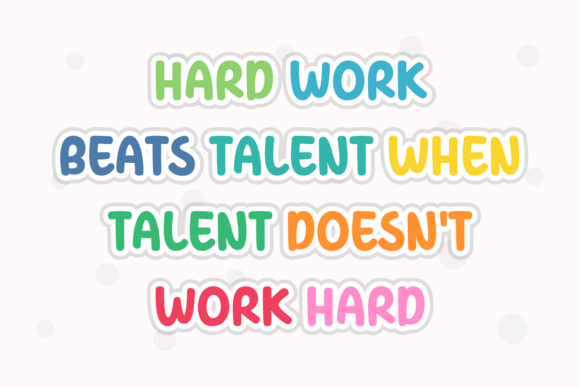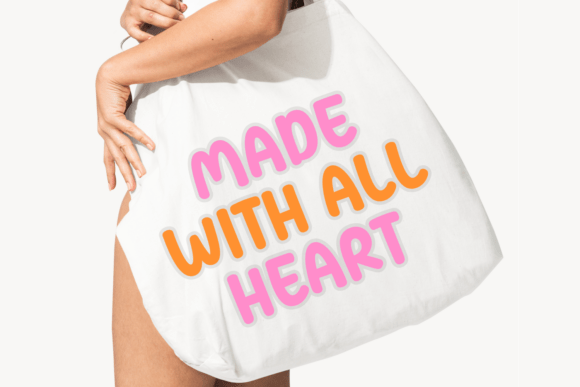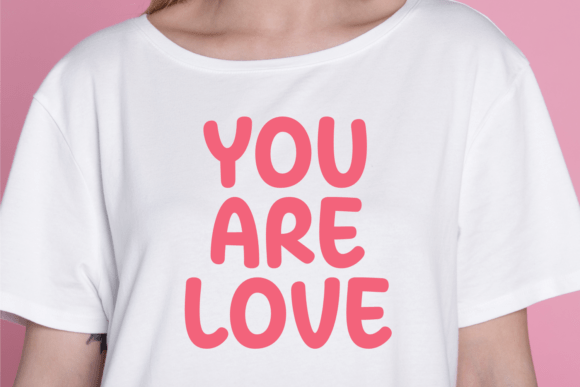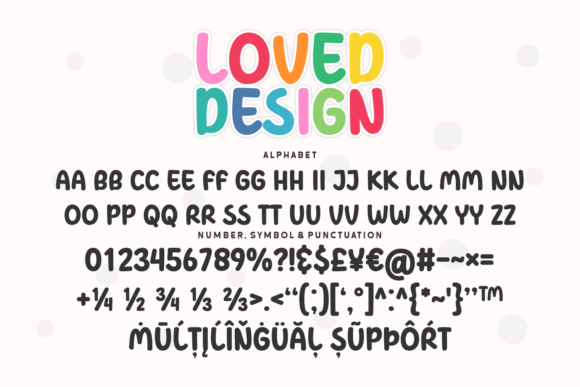
Introduction to Loved Design Font
Introduce yourself to the effervescent Loved Design font, a typeface that seamlessly melds bold and bouncy, resulting in an irresistibly energetic aesthetic.
Its rounded edges temper the magnitude of its robust body, striking a perfect harmony of friendly approachability and striking influence Loved Design takes the crown as the epitome of whimsical display fonts, infusing every digital canvas with an injection of youthful peppiness, making it an excellent fit for childrenโs merchandise packaging, festive event paraphernalia, or within playful gaming environments.
Key Features of Loved Design Font